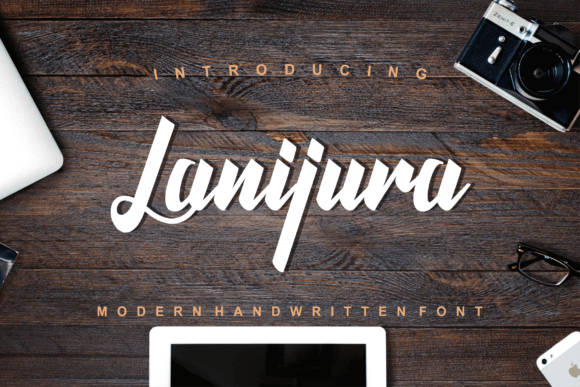
Unleash the Beauty of Expression with Lanijura Font: The Epitome of Authenticity and Style
In a world where individuality reigns supreme, Lanijura Font emerges as a captivating symphony of creativity, inviting you to embrace the power of authentic expression. This remarkable script font, meticulously crafted by the visionary kalingga.albert, transcends ordinary boundaries, captivating audiences with its bold strokes and mesmerizing flourishes.
Lanijura Font is not merely a collection of letters; it's an artistic conduit, a vessel through which your ideas take flight. Whether you're a seasoned designer or just starting your creative journey, Lanijura empowers you to make a statement, to leave an indelible mark on the world.
Picture your designs adorned with the grace and elegance of Lanijura. Let your words dance across the page, infused with a raw energy that commands attention. Whether you're creating logos that exude timeless sophistication or T-shirt designs that radiate personality, Lanijura becomes an extension of your imagination, transforming your vision into reality.
In the realm of e-sports, Lanijura emerges as a champion, its dynamic curves and sharp angles perfectly capturing the exhilaration and intensity of competitive gaming. It's a font that resonates with gamers, inviting them to immerse themselves in a world of digital prowess and triumph.
And Lanijura's versatility extends far beyond the confines of the digital realm. Its beauty shines through in print as well, adding a touch of charm to your invitations, greeting cards, and other paper creations. It's a font that adapts effortlessly to any medium, allowing your creativity to flourish in myriad ways.
With Lanijura Font, you'll discover a font that's not just a tool, but an inspiration. It's a font that ignites your passion, fuels your creativity, and empowers you to create designs that resonate with authenticity and style. Don't settle for ordinary fonts. Choose Lanijura, and elevate your designs to new heights.